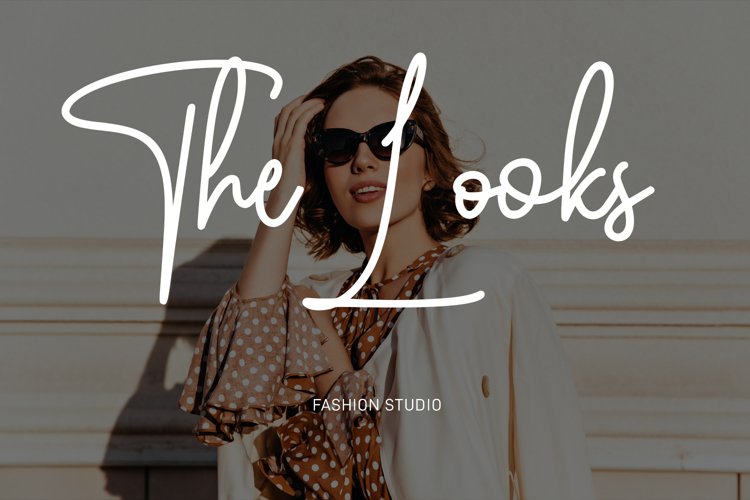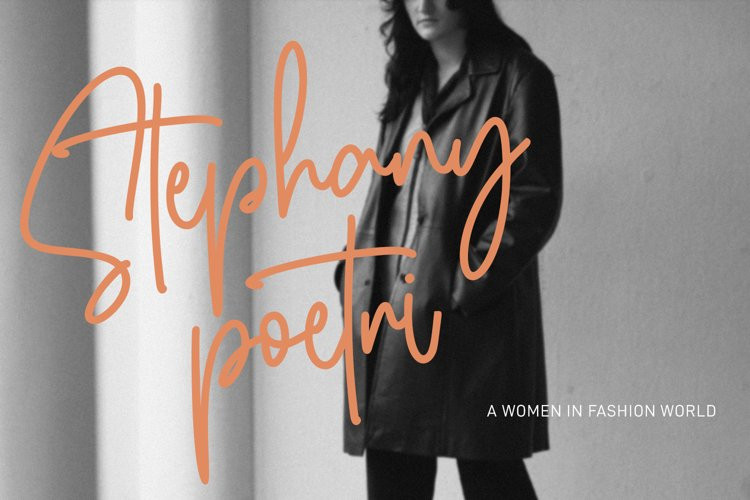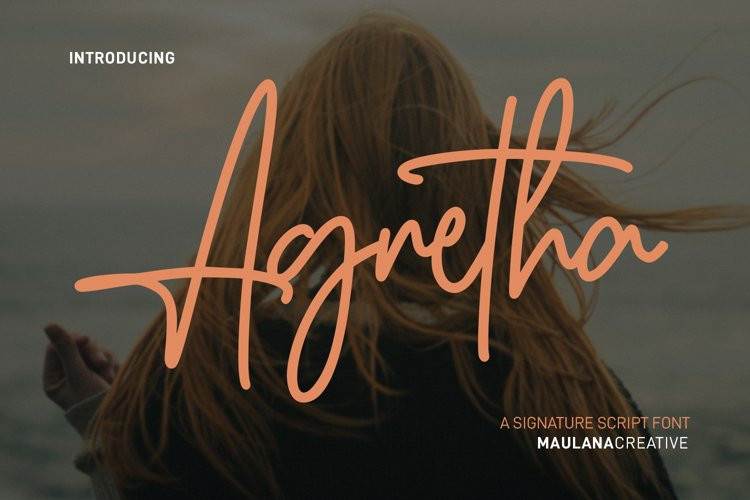
Agretha Font
Agretha FontAgretha is a signature script font. With regular mono-line consist stroke, fun character with a bit of ligatures and alternates. To give you an extra creative work. Agretha font support multilingual more than 100+ language. This font is good for logo design, Social media, Movie Titles, Books Titles, a short text even a long text letter and good for your secondary text font with sans or serif. Make a stunning work with Agretha font.